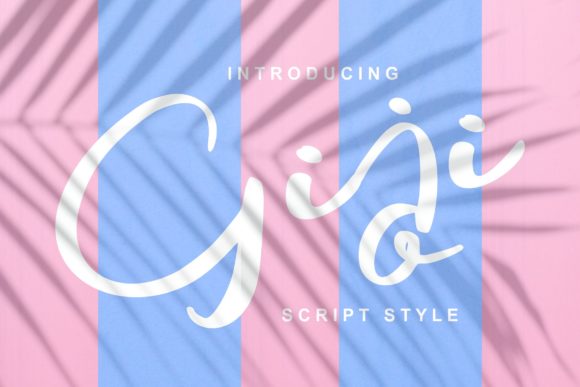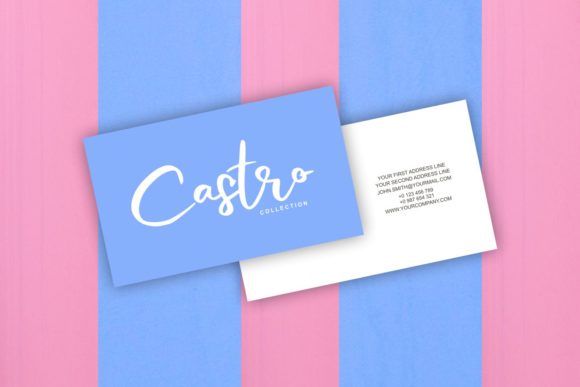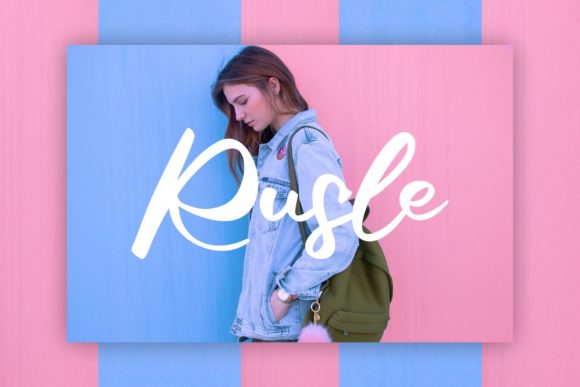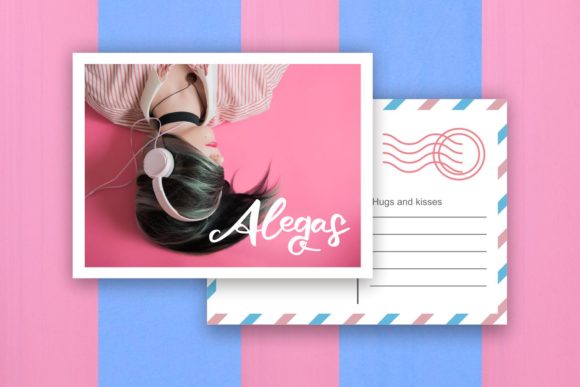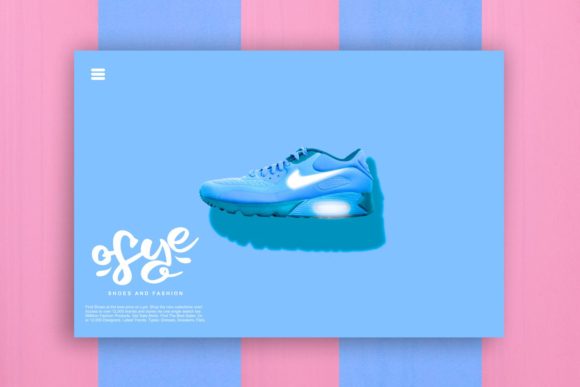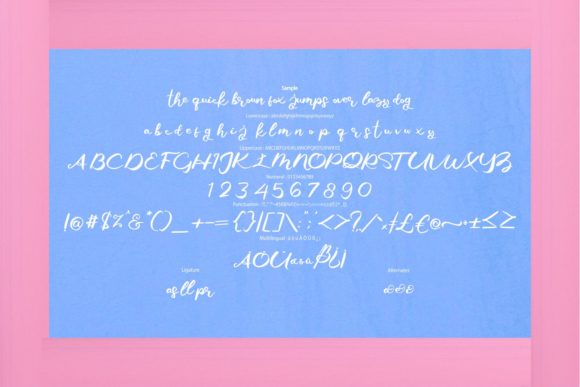
Giji Font
About Giji Font
With its unique calligraphic style, Hibes is a fun and powerful script that radiates life. It will add an authentic spin on any design project!